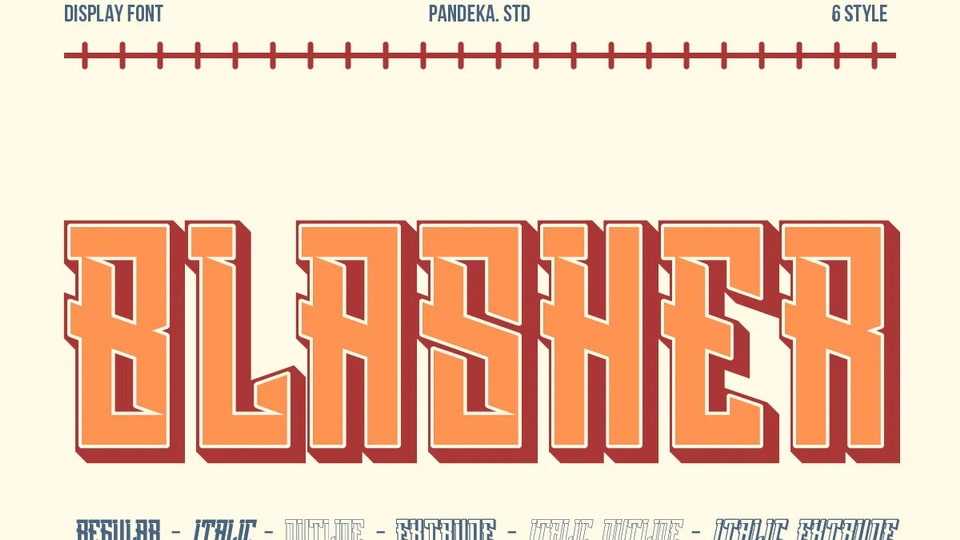
Download Blasher font, a sporty display typeface with a condensed slab style that packs a punch! Blasher is crafted to elevate your designs with its dynamic and athletic feel.